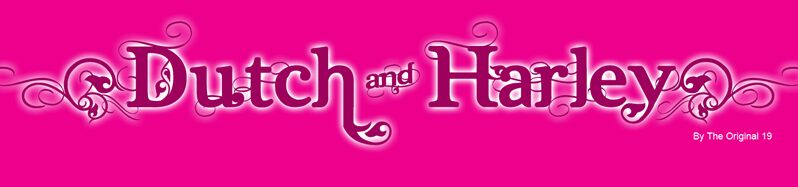
Dutch & Harley
Dutch & Harley by The Original 19 is a free whimsical display serif with stout, rounded letters and lively changes in stroke width. Broad curves, blunt serifs, pinched joins, and softly inflated forms give the lettering a storybook look, with enough irregularity to feel hand drawn rather than typeset.
Children's and novelty markets are the clearest match for this lettering. The oversized forms suit toy packaging, picture-book covers, and party posters, particularly for children and families drawn to lettering that can become part of the illustration within playful scenes.